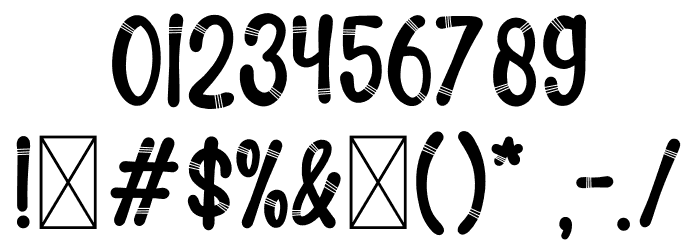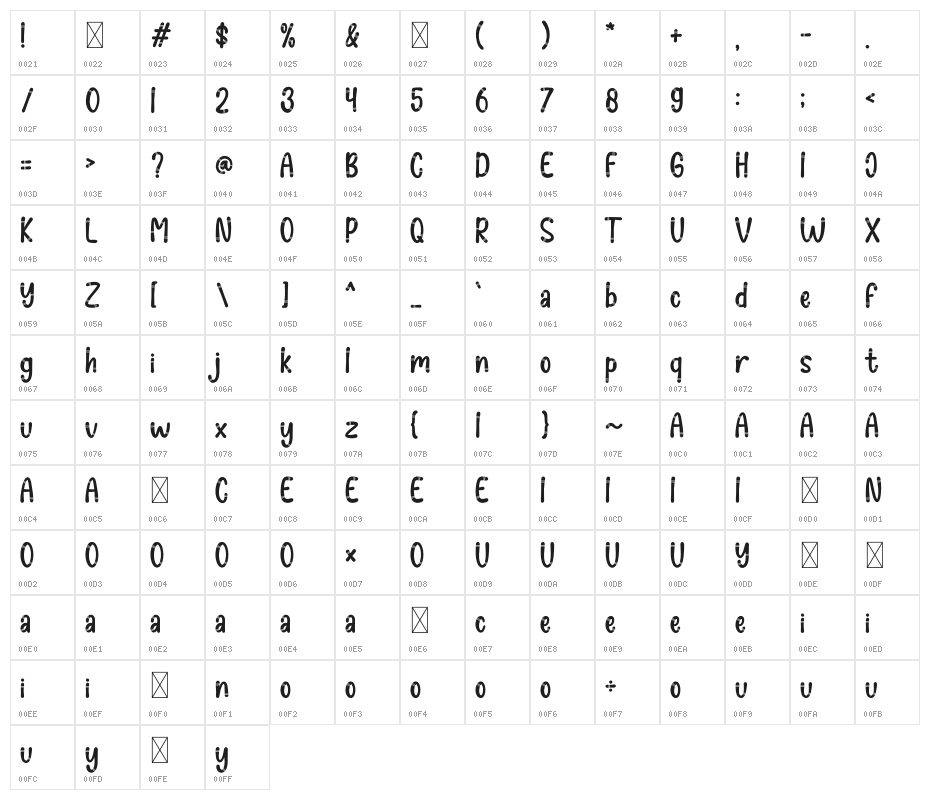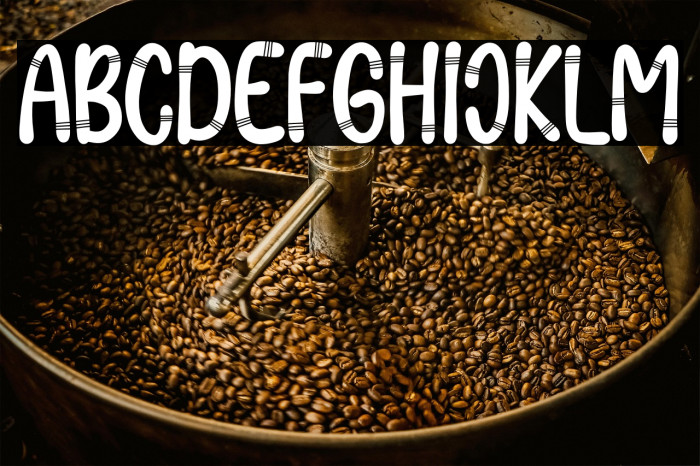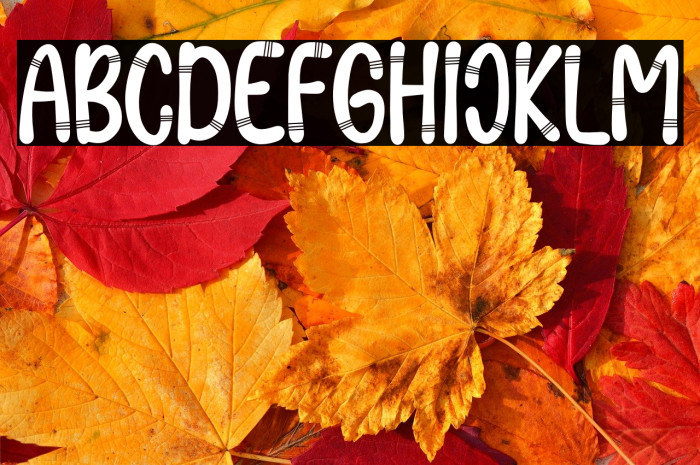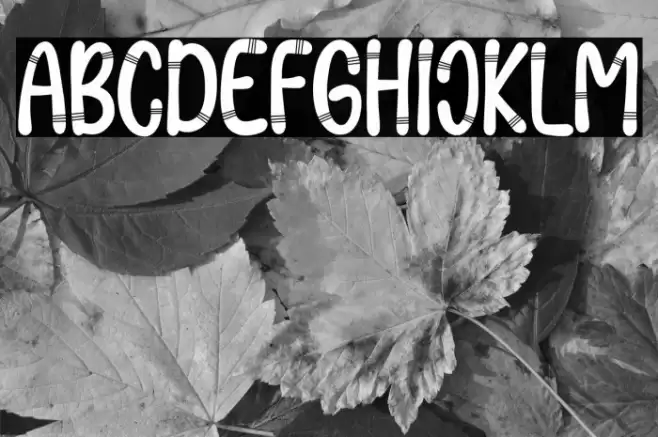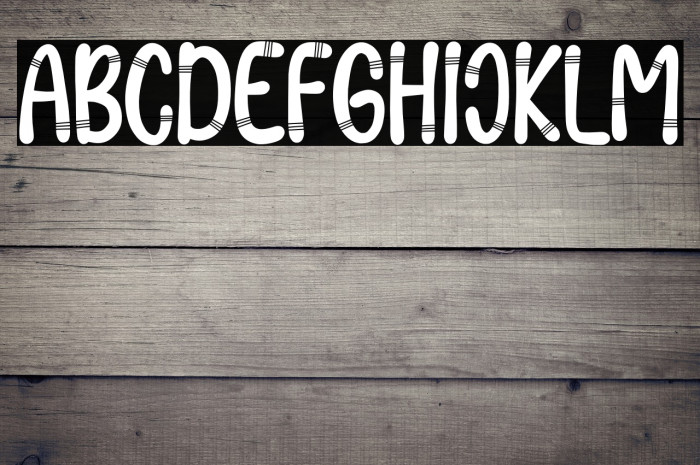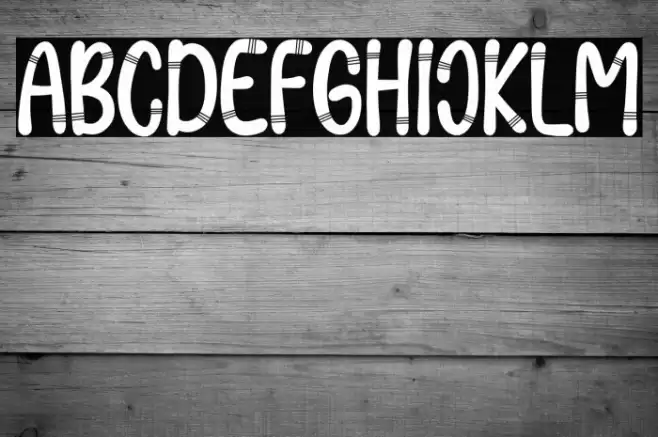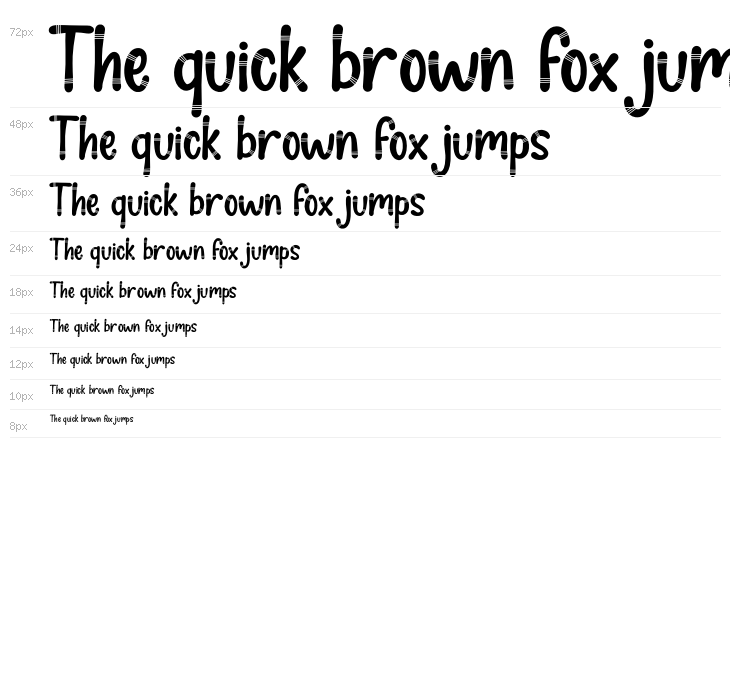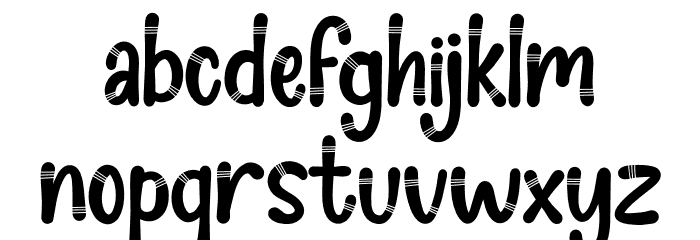
Boho Lover Font
Boho Lover Description
This font features a playful and decorative style with a unique bohemian flair. The letters are bold and rounded, with distinctive horizontal lines running through each character, adding a textured appearance. The uppercase and lowercase letters maintain a consistent style, while the numbers and special characters complement the overall design. The font's whimsical nature makes it ideal for creative projects that require a touch of personality and charm. Its bold presence ensures readability while maintaining an artistic edge.
| Proposed Projects | Ideal for bohemian-themed designs, children's books, creative posters, and branding projects that require a whimsical touch. |